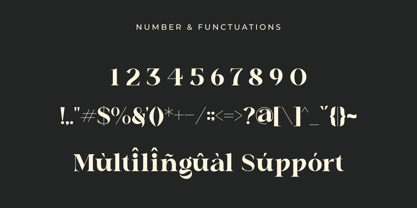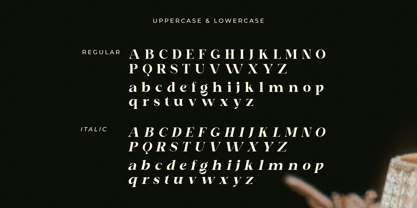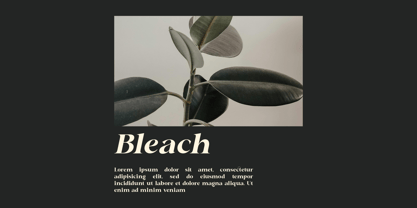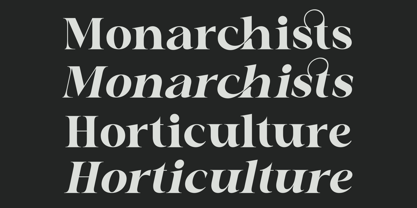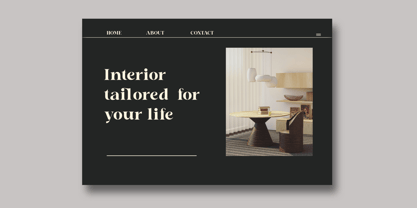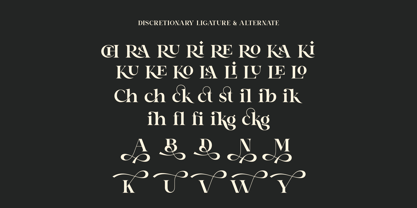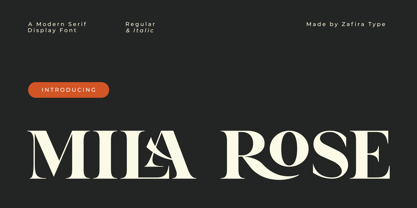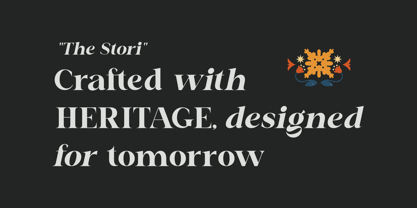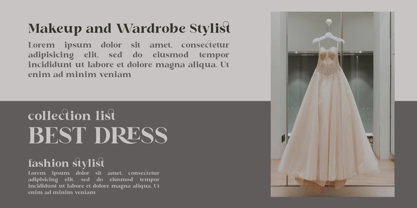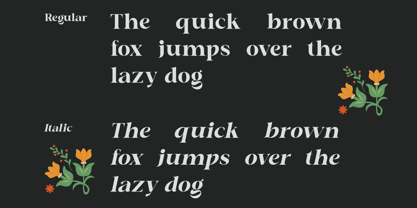
Mila Rose
Milarose is a feminine serif font that radiates timeless beauty and graceful confidence. Designed with elegant contrast, soft curves, and subtle details, Milarose is perfect for projects that seek sophistication with a romantic touch — from wedding invitations and branding to editorial layouts and luxury packaging.
Its classic structure mixed with delicate modern nuances makes Milarose a charming choice for feminine-focused designs, fashion brands, and lifestyle content.
Features:
– Elegant modern serif
– Feminine & soft character shapes
– Perfect for logos, invitations, editorials, and packaging
– Beautiful ligatures and stylistic alternates
– Multilingual support